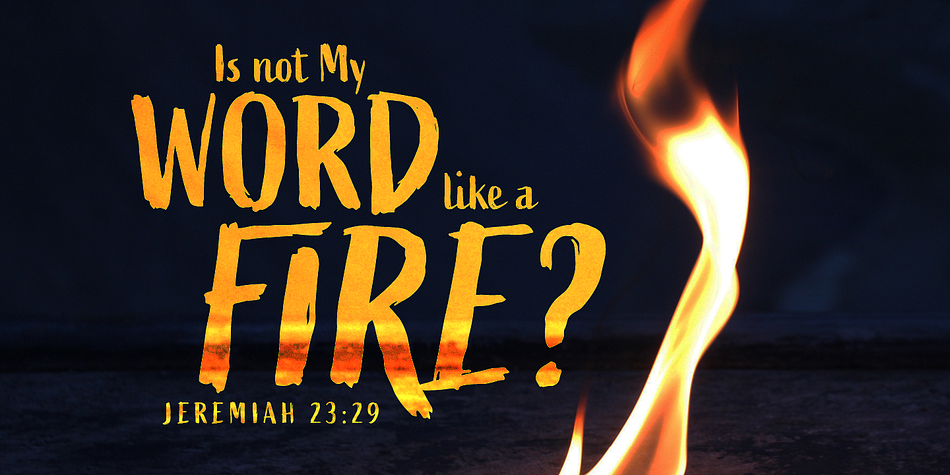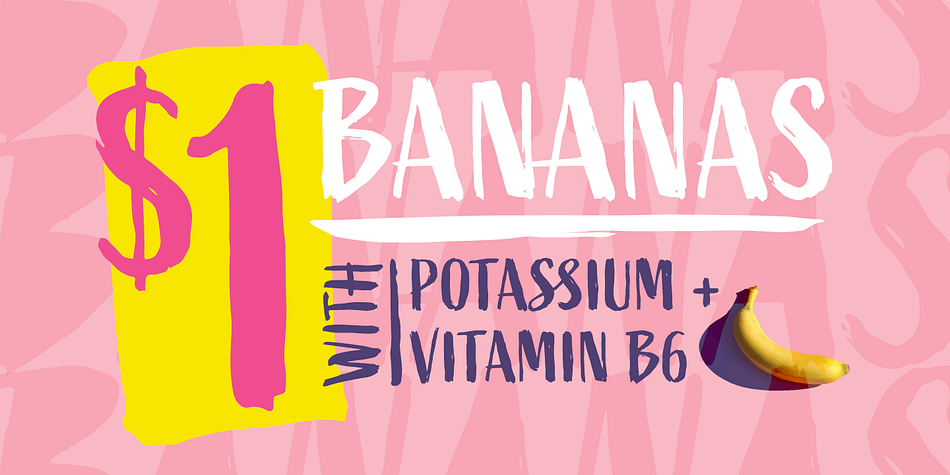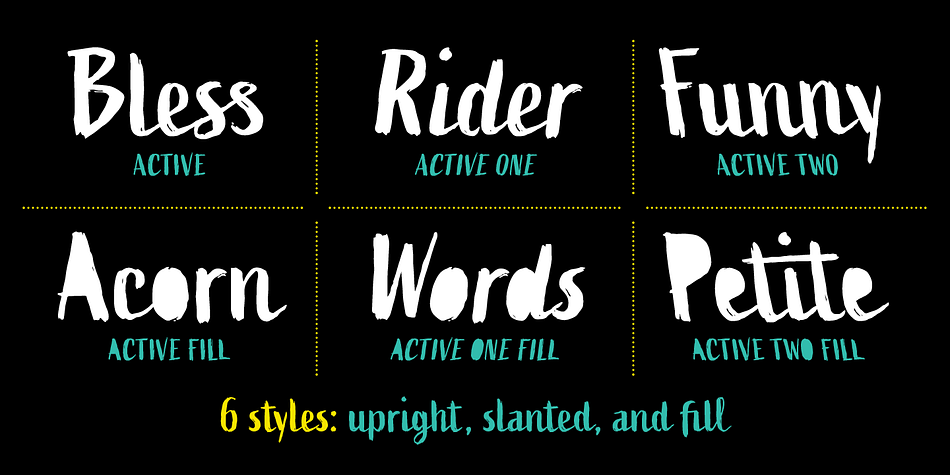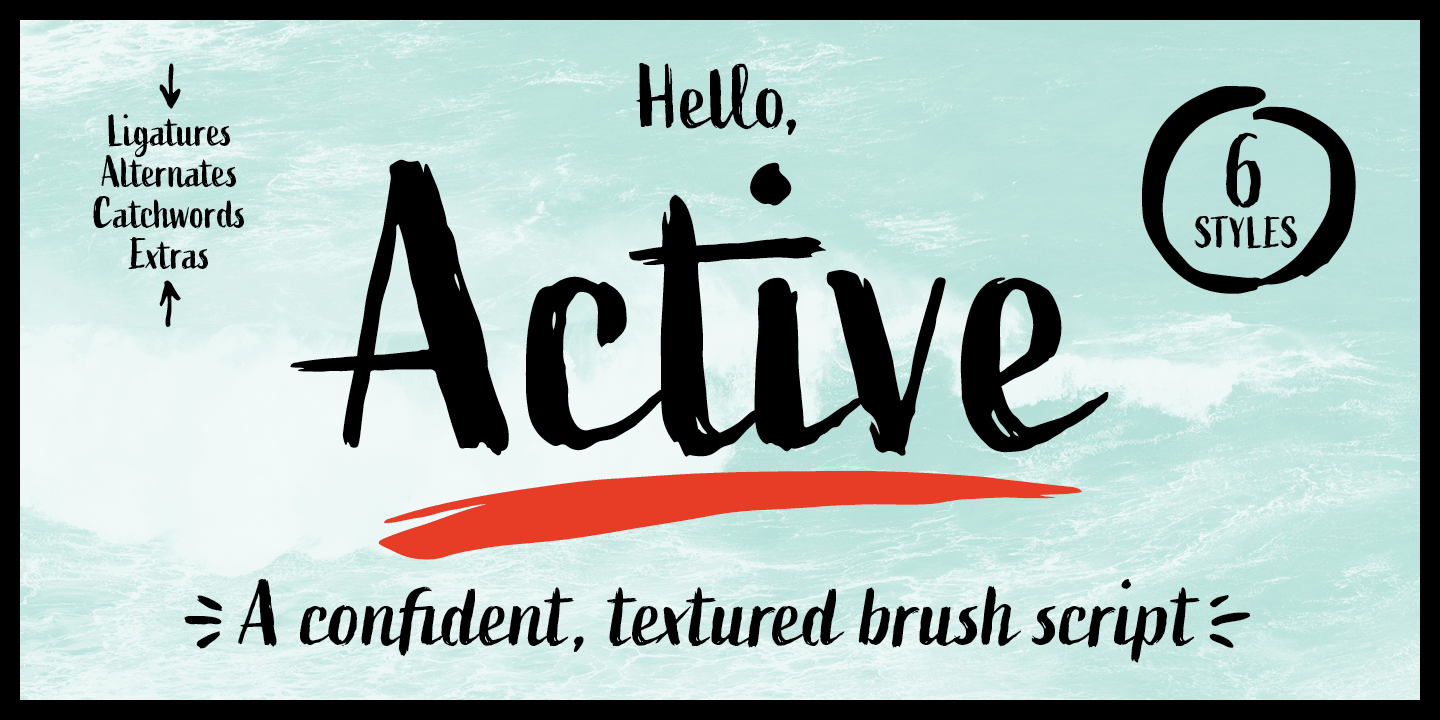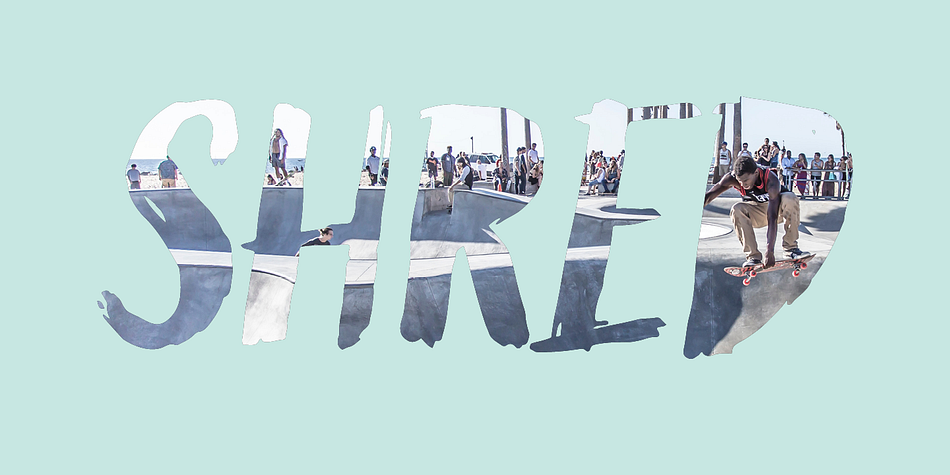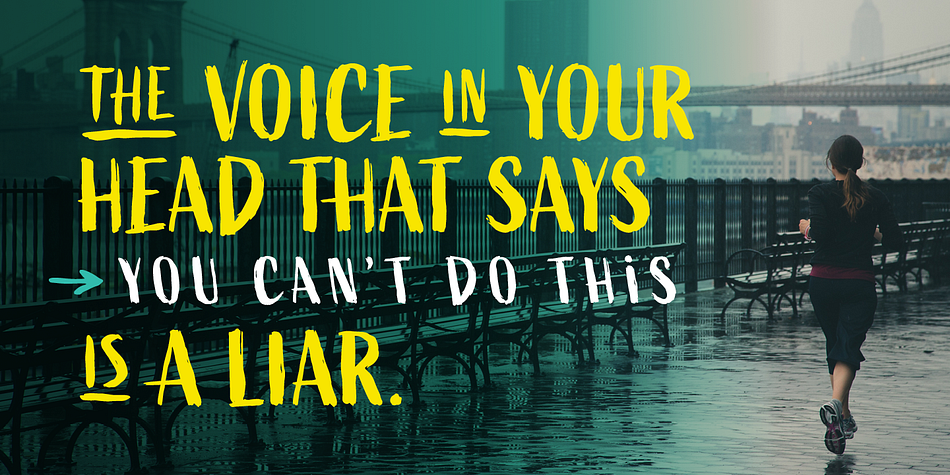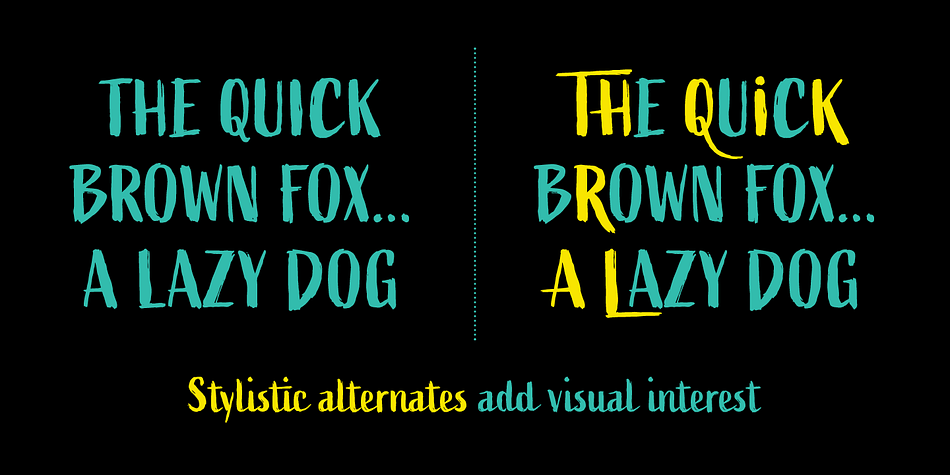
Designed by Adam Ladd, Active is a hand drawn and hand display font family. This typeface has six styles and was published by Adam Ladd.
Active is an upright brush script with slanted and fill styles. Hand-drawn with brush and ink, it is confident while expressive, and has a textured appearance. The slightly condensed proportions help it stand a little taller, and the slanted and fill versions each give the typeface a little extra twist. Loud yet personal, Active will work great for packaging, branding, merchandise, quotes, posters, etc.
Automatic ligatures replace repeating characters for all basic latin letters (both upper and lowercase) for a more genuine look. Stylistic alternates for certain uppercase characters (like A, L, R, and more) will help add visual interest to your typography.
Also included in the 400+ glyph count are catchwords (just turn on discretionary ligatures, or access via the glyphs panel in OpenType savvy programs) and ornamental extras, like symbols and lines.